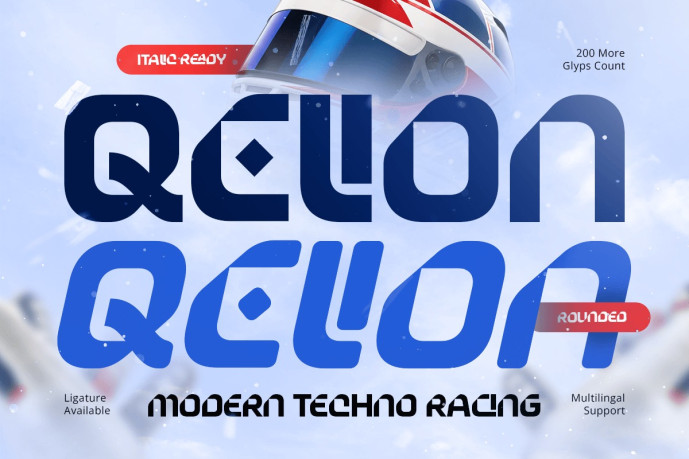
Qelion – Modern Techno Racing Font
Designer: Dareco Studio
Qelion – Modern Techno Racing Font is a futuristic display font designed for motorsport branding, racing logos, automotive graphics, esports identities, and technology-focused visual communication. Inspired by advanced engineering, competitive racing, and digital innovation, Qelion combines bold techno styling with dynamic letterforms to create a distinctive visual identity for modern brands.
Featuring sharp geometric characters, angular construction, and futuristic racing-inspired details, Qelion delivers exceptional visual impact while maintaining excellent readability. Its bold display style is ideal for logos, branding systems, promotional graphics, headlines, and digital media that demand speed, precision, and innovation.
Whether you’re designing a motorsport logo, building an automotive brand, creating esports visuals, or developing technology marketing materials, Qelion provides the high-performance typography needed to strengthen your visual identity.
Qelion Font Features
Character Set: Uppercase, lowercase, numbers, symbols, and punctuation
Modern techno letterforms optimized for racing logos and futuristic branding
Prepared with 4 styles: regular, italic, rounded, rounded-italic
OpenType features ready to enhance your design needs
Qelion is Perfect For
Motorsport and racing branding
Automotive logo and visual identity design
Esports and gaming branding
Technology startup branding
Racing event promotions and advertising
Website headers and digital brand assets
Dynamic display typography
High-performance visual identity systems
Whether you’re creating a motorsport logo, developing an automotive brand, designing gaming and esports graphics, or building a technology-driven visual identity, Qelion delivers the speed, innovation, and futuristic character of a modern techno racing font crafted for today’s competitive brands.